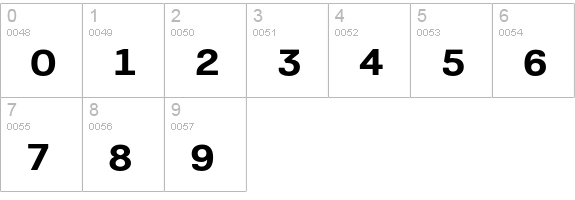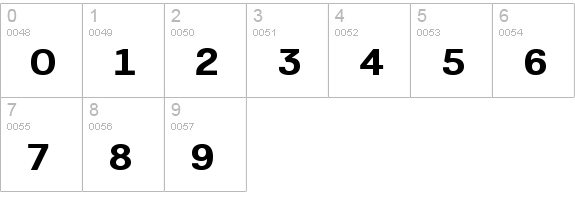
PFEncoreSansPro-Bold is a strong, high-contrast variant in the PFEncoreSansPro typeface family \xE2\x80\x94 well suited to headlines, attention-grabbing titles, and strong calls-to-action.
PFEncoreSansPro-Bold is a modern and versatile font that exudes confidence and strength. With its bold weight and clean lines, this typeface is perfect for making a bold statement in any design project. Whether you are creating posters, logos, or headlines, PFEncoreSansPro-Bold will help your text stand out and command attention. And the best part? PFEncoreSansPro-Bold is available for free download at FontsMarket.com. That's right, you can easily access this high-quality font without breaking the bank. So go ahead and elevate your designs with PFEncoreSansPro-Bold today!